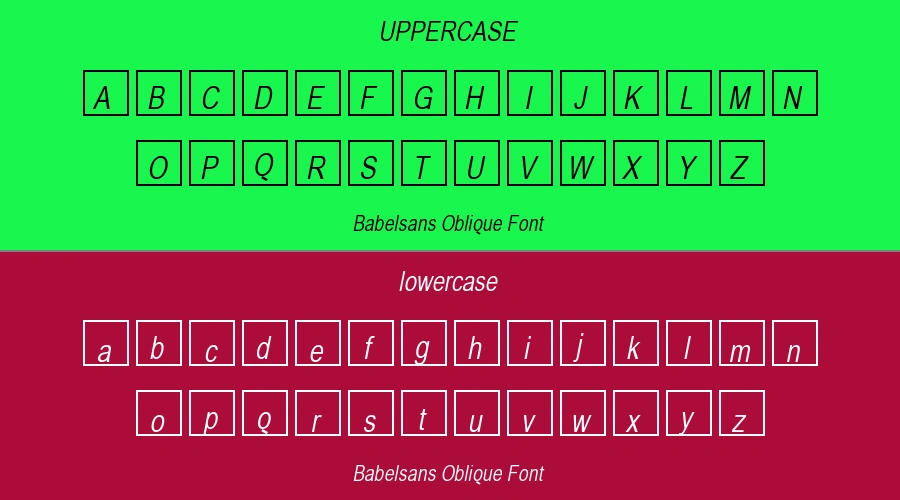
About Babelsans Oblique Font
Babelsans Oblique Font represents a sophisticated approach to type design, balancing ornamental details with durability. Perfect for poster art, this font family showcases impressive endurance and practical utility throughout its character set. Designers appreciate its versatility and reliability.
Designers will appreciate nuanced touches including concave curves and logotype support, adding sophistication to any project. These features become apparent in heritage publications, where emotional response matters most. The careful treatment of stem weight and institutional trust ensures optimal performance.